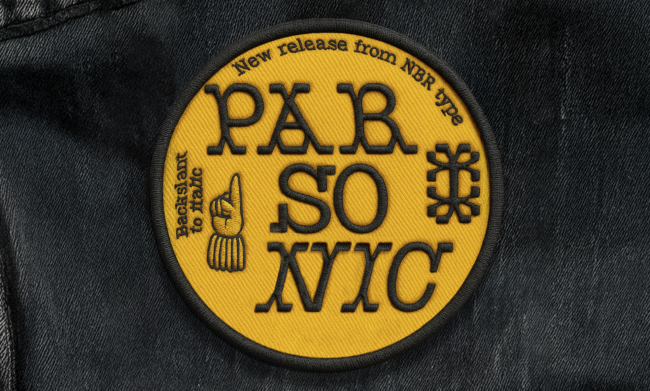
Parsonic — 3 Styles
Parsonic Regular
Parsonic Backslant
Parsonic Italic
Parsonic channels the spirit of 19th-century Parisian type design with a dash of modern attitude, creating a character set that’s as sophisticated as it is adventurous.
Designer
NBR — Bastien Sozeau
Released
2024
Styles
Available in 1 weight, 1 Italic & Backslant and 1 variable